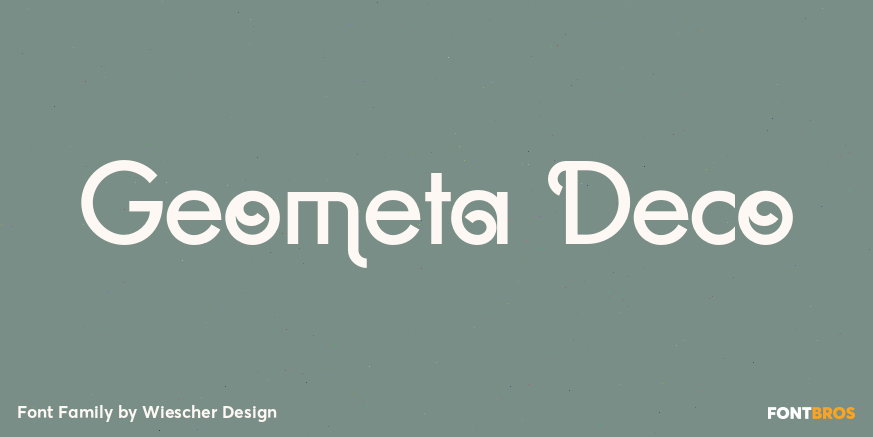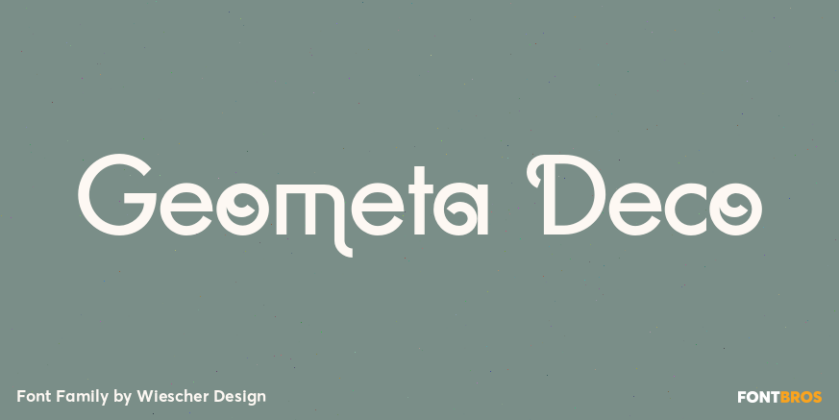
Geometa Deco
About Geometa Deco
Geometa Deco is based on Paul Renners Futura Classic. The design is timeless, but I always missed some decorative characters. So I sat down and did some. The type-designer for surprising solutions, Gert Wiescher